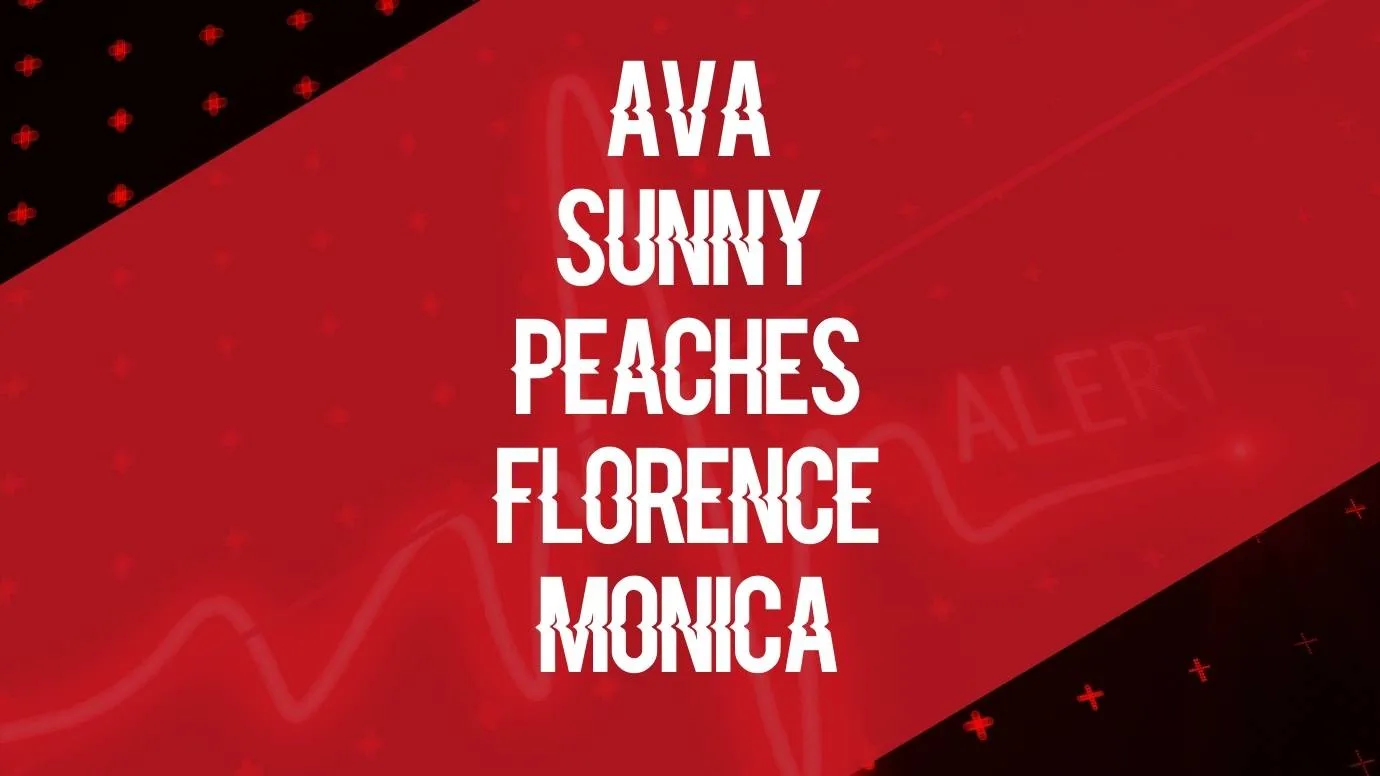
Are you interested in using an interesting and stylish font in your logo designs? In this post, I shall introduce to you this interesting and unique style font. The blacklisted font is stunning and attractive font. This font consists of one Regular style. It is a decorative font and belongs to the Display family.
This font is containing a complete set of 92 characters, numbers, and special characters. It also contains a set of 43 glyphs. This font looks like the Rye Font. You can use this font in Adobe and CorelDraw to create tremendous logos and graphic designs after installing it.
You can use this font in logos, fabric designing, T-Shirt designs, fashion designing, posters, banners, book titles, fashion magazine covers, presentations, branding, product packaging, and many different designing works.
Creator of Blacklisted Font
This fabulous and attractive font is created by an American typeface and logo designer named Jayde Garrow. He designed many logos for the NHL teams.
This font style is created with an exclusive and consistent style. This gorgeous style is a combination of various characteristics, containing upper and lower case alphabets, punctuations, glyphs, digits, symbols, special characters, and with a large number of language support, etc.
View of Blacklisted Font
| Name | Blacklisted Font |
| Style | Decorative |
| Designer | Jayde Garrow |
Who created Blacklisted Font?
This font is created by an American designer Jayde Garrow.
Is Blacklisted Font a Sans Serif font?
No, this is not a Sans Serif font. It is decorative and displays font.